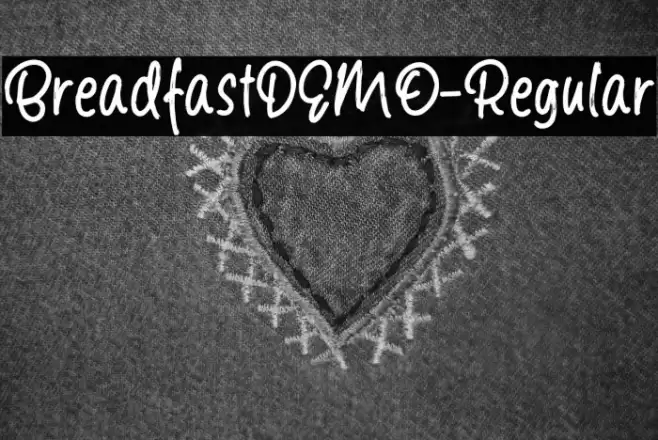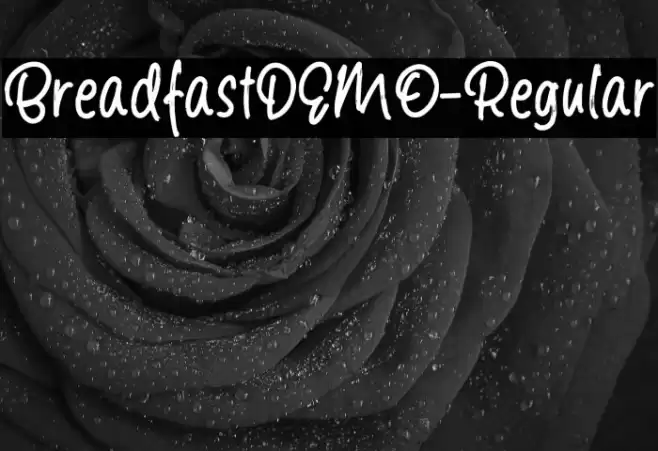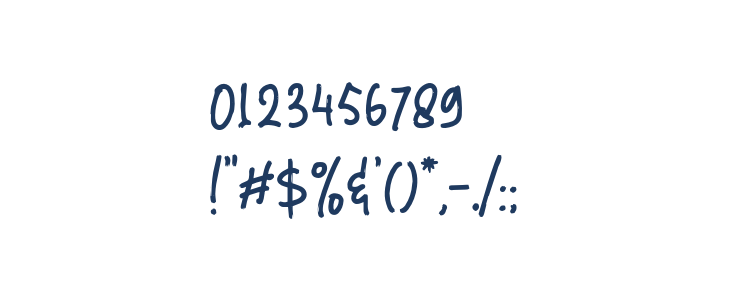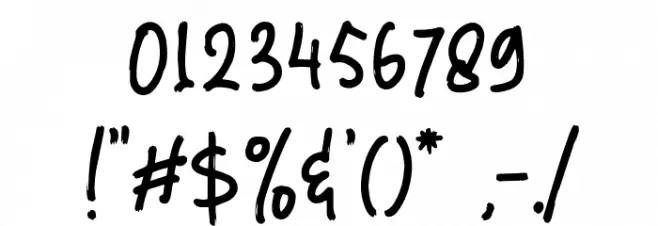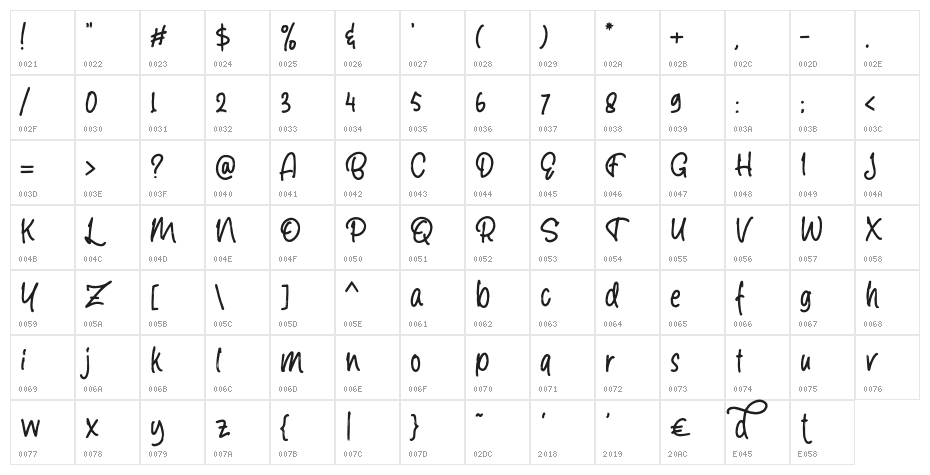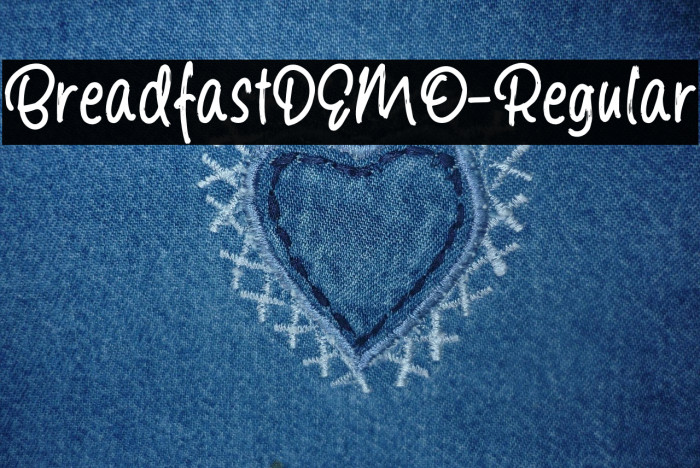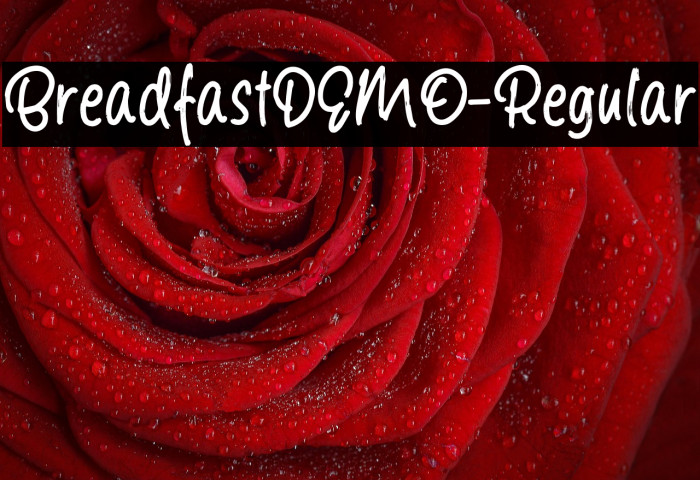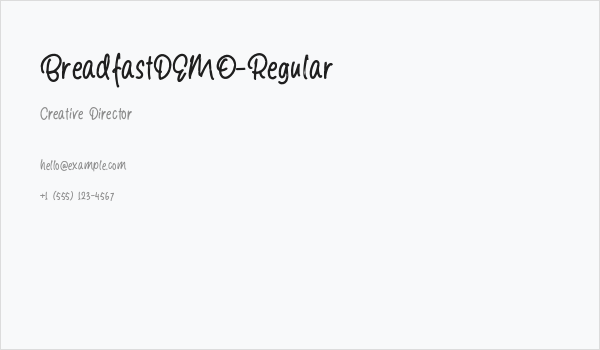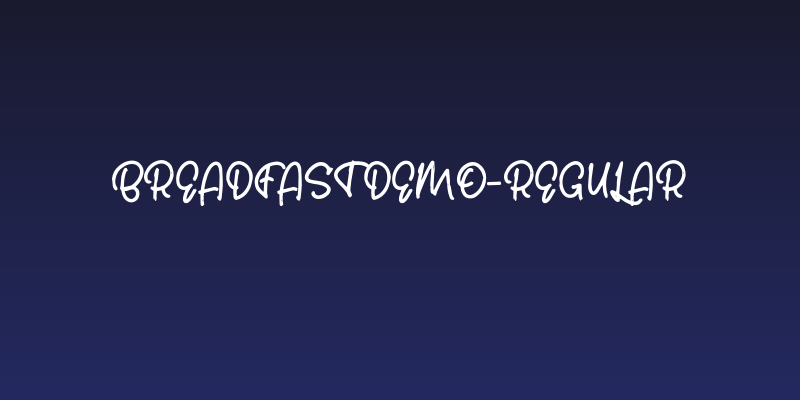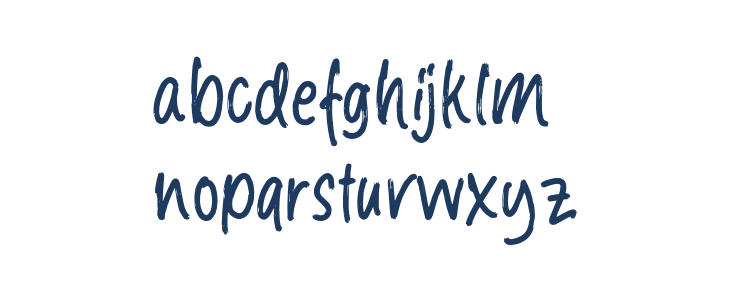
BreadfastDEMO-Regular Font
BreadfastDEMO-Regular Description
This font features a bold, expressive style that mimics the look of hand-painted brush strokes. The characters are slightly irregular, adding a dynamic and artistic flair. The uppercase and lowercase letters maintain a consistent flow, with some letters featuring unique swashes and curves that enhance their visual appeal. The numbers and special characters are equally stylized, ensuring a cohesive look across all text elements. This font's energetic and creative design makes it ideal for projects that require a personal touch or a bold statement.
A bold, brush-style font with expressive, hand-painted strokes from Regular fonts.
- Proposed Projects: Ideal for branding, posters, artistic projects, and any design needing a bold, personal touch.